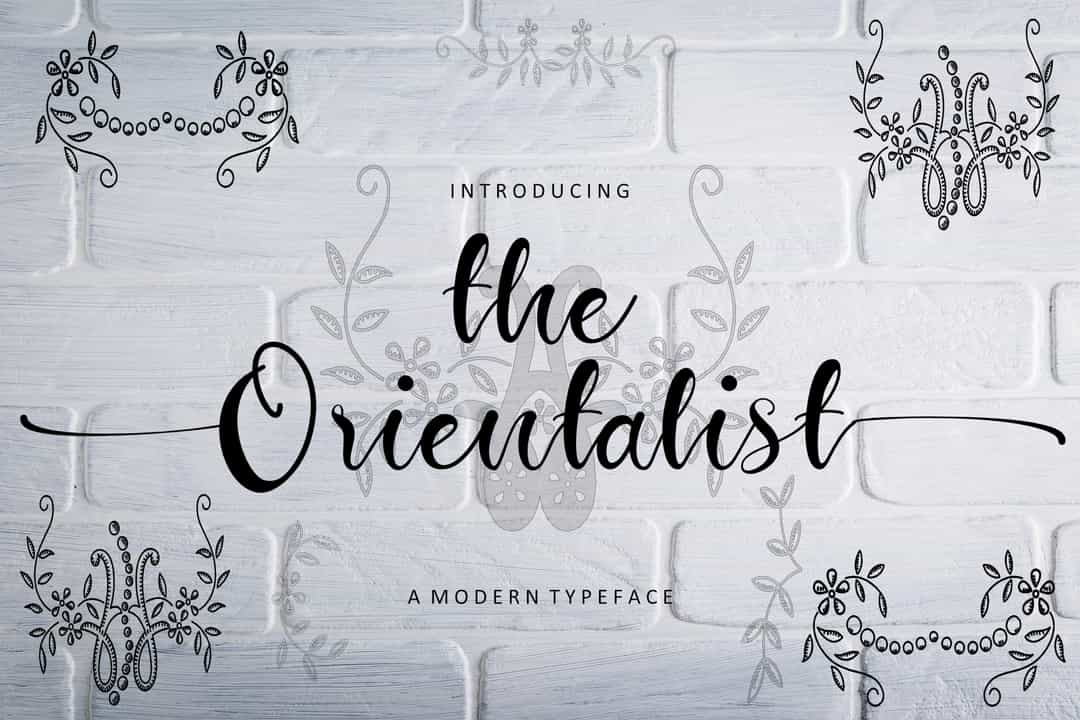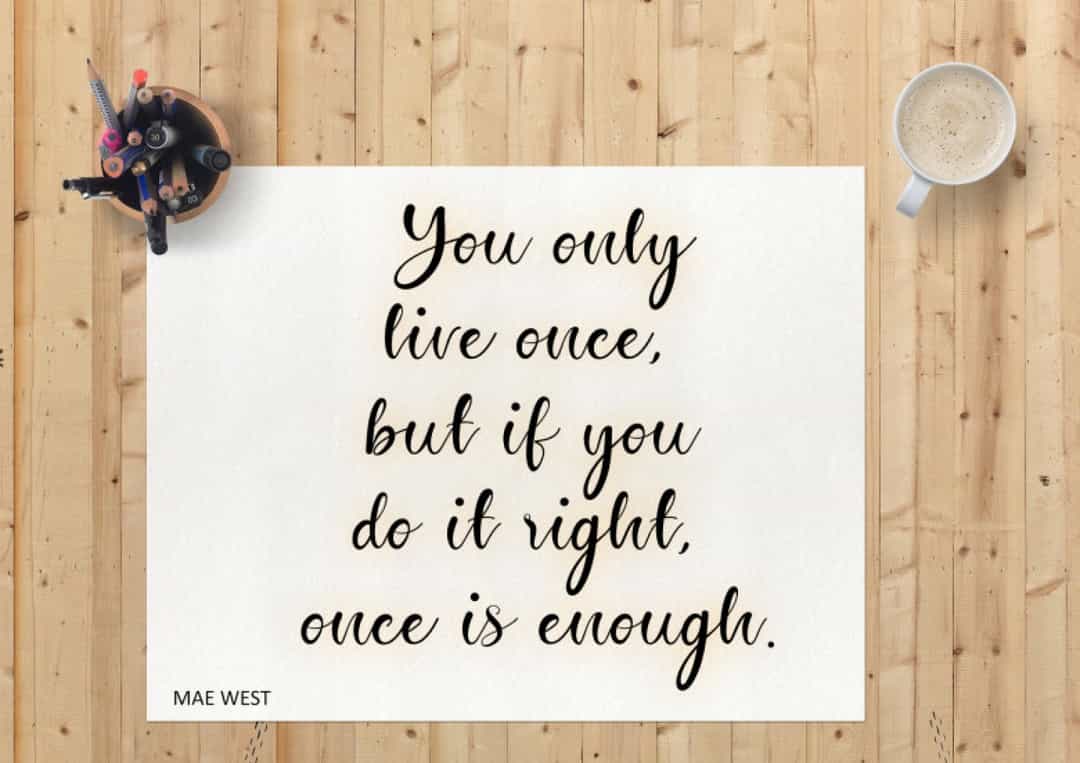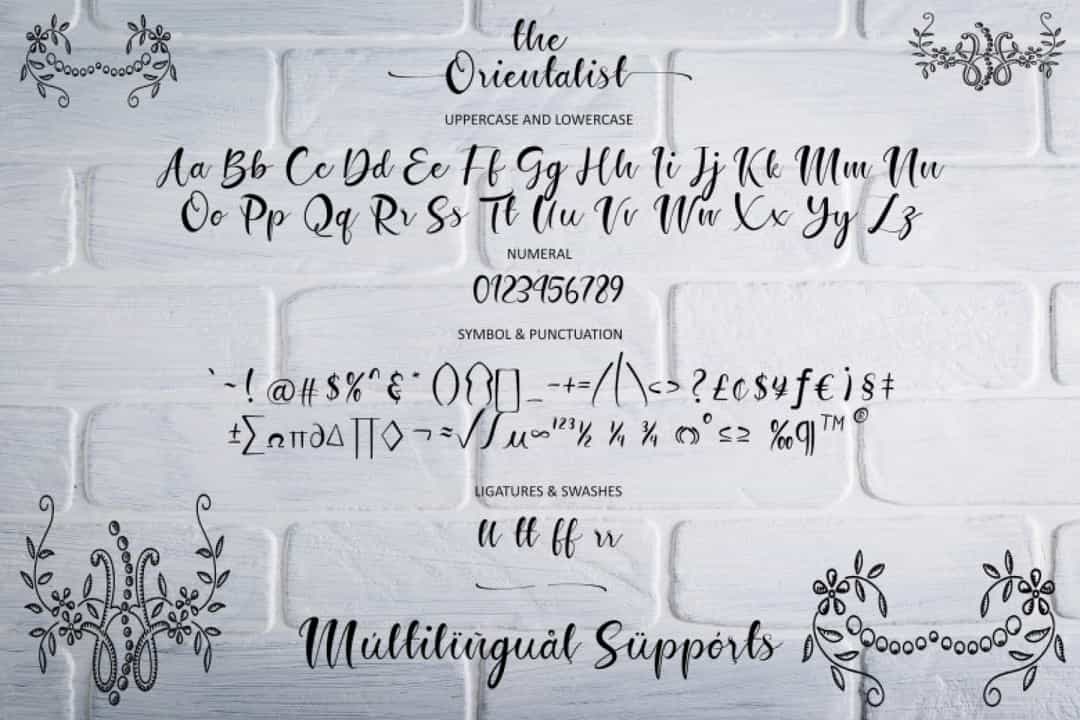
Orientalist is an elegant and romantic calligraphy font featuring characters that move along its base, offering casual yet elegant text that’s ideal for various tasks like wedding invitations, logos T-shirts logos headings letterhead labels signage newsprint posters badges badges posters badges badges more.